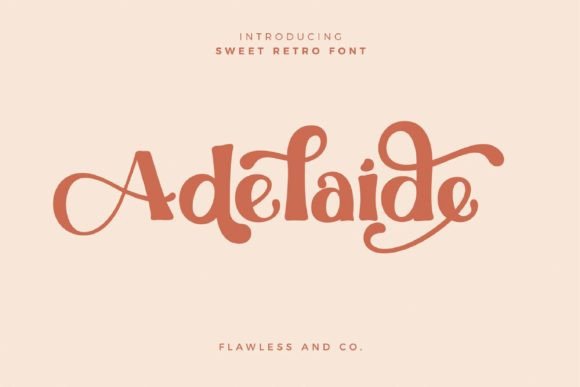
Let your imagination run wild with Adelaide Font, the captivating display font that will transform your designs into a nostalgic wonderland. Its playful retro charm evokes a sense of joy and whimsy, making it the perfect choice for creating eye-catching logos, vibrant posters, and unforgettable headlines.
Like a blast from the past, Adelaide Font transports you to the golden age of cartoons and classic children's books. Its charming curves and playful lines create a sense of nostalgia that will resonate with audiences of all ages. Whether you're designing for a children's game, a whimsical brand, or a cover that captivates the imagination, Adelaide Font will add a touch of magic to your work.
With its versatility, Adelaide Font effortlessly adapts to a wide range of design styles. Its playful nature lends itself to lighthearted and whimsical creations, while its retro charm brings a touch of sophistication to more formal designs. Whether you're creating social media graphics, eye-catching advertisements, or stunning book covers, Adelaide Font will elevate your designs with its timeless appeal.
But beyond its aesthetic charm, Adelaide Font is also incredibly easy to use. Its clean lines and well-balanced characters ensure effortless readability, even in small sizes. This makes it an excellent choice for headlines, subheadings, and other text-heavy elements.